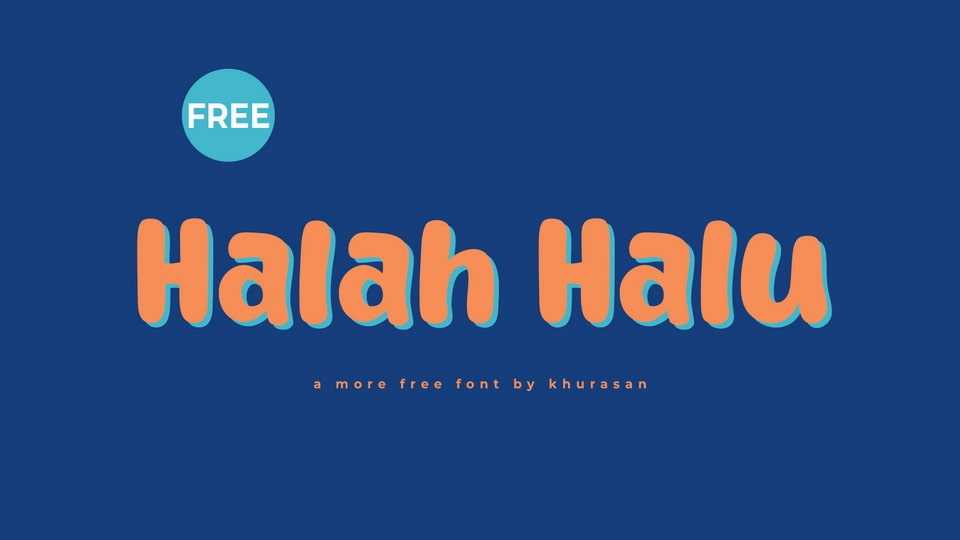
Download Halah Hulu font, a cute and playful hand-crafted typeface that exudes charm and creativity. It features rounded, whimsical letterforms with gentle curves and delightful details